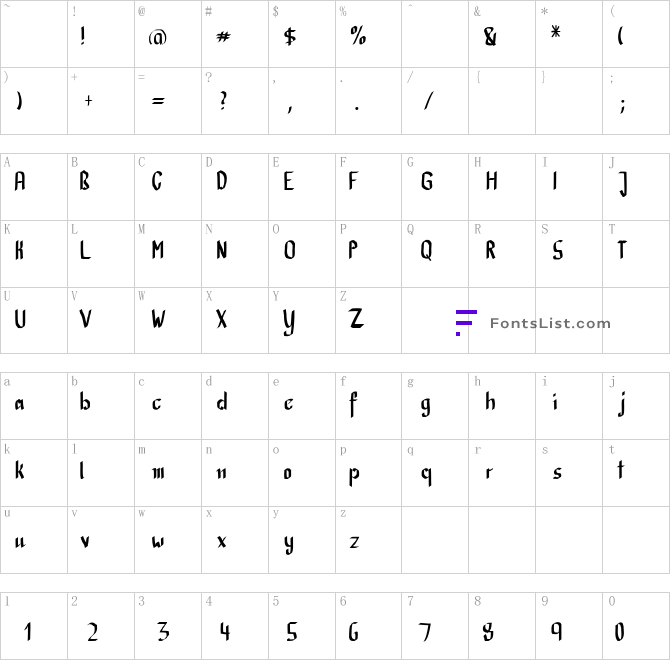
- Font Name:CalliBrush
CalliBrush.ttf is a very beautiful artistic font, CalliBrush.ttf is widely used in the design and printing of various books and pictures,CalliBrush.ttf has a strong visual impact,CalliBrush.ttf is a commonly used font in newspapers, magazines and books, and is used in posters, e-commerce Poster design, store design, logo design, font design and other fields.CalliBrush.